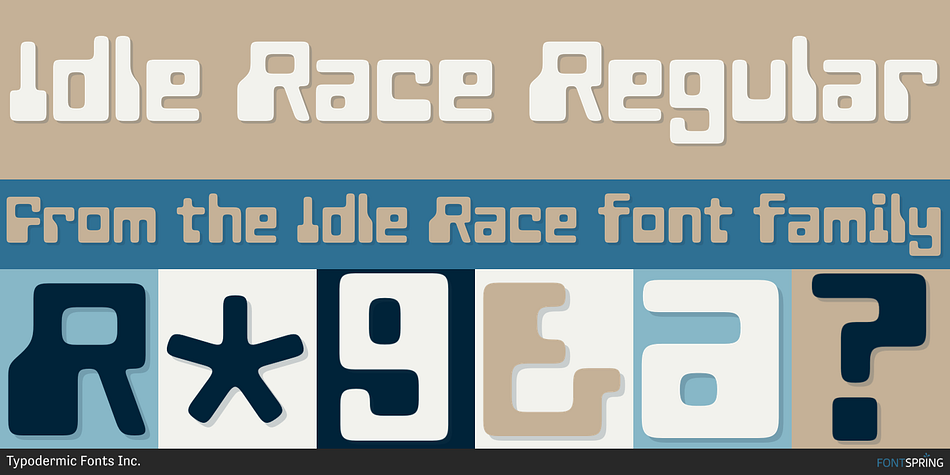
Idle Race Regular
Designed by Ray Larabie, Idle Race is a pixel and retro font family published by Typodermic Fonts Inc.
Step into a world where technology dances hand in hand with fashion, where the pulse of the 1960s technological optimism beats at the heart of design. Typodermic Fonts presents Idle Race, a typeface that captures the essence of an era when magnetic ink numerals (MICR) were not just a marvel of banking technology but a symbol of cutting-edge style.
Idle Race is a homage to the MICR-inspired typefaces that broke the mold, taking the signature thick rectangular slugs and infusing them with a psychedelic twist. Far from the strict forms of its ancestors, Idle Race plays with fat, soft shapes that contrast vividly against its rigid, electronic origins. This typeface is not just a font; it’s a fashion statement, evoking the true Carnaby Street vibe with every letter typed.
Designed for those who yearn to blend the nostalgia of the swinging 60s with the demands of contemporary design, Idle Race shines brightest in uppercase, though it graciously offers lowercase letters for added versatility. Drawing inspiration from the most way-out MICR fonts like Gemini Computer, Hinge Computer, and Magnetic Ink 7, Idle Race invites designers to break free from the confines of modernity and splash their projects with a dose of retro flair.
Idle Race is more than just a nod to technological themes; it’s a liberation of the typeface genre, inviting it back into the realms of fashion and psychedelia where it truly belongs. Whether you’re branding a cutting-edge fashion line, designing a psychedelic poster, or simply looking to infuse your project with a sense of 60s chic, Idle Race is your ticket to an era of endless creativity and optimism. Embrace the past, present, and future with Idle Race, and let your designs tell a story of innovation, style, and technological wonder.
Designer Ray Larabie